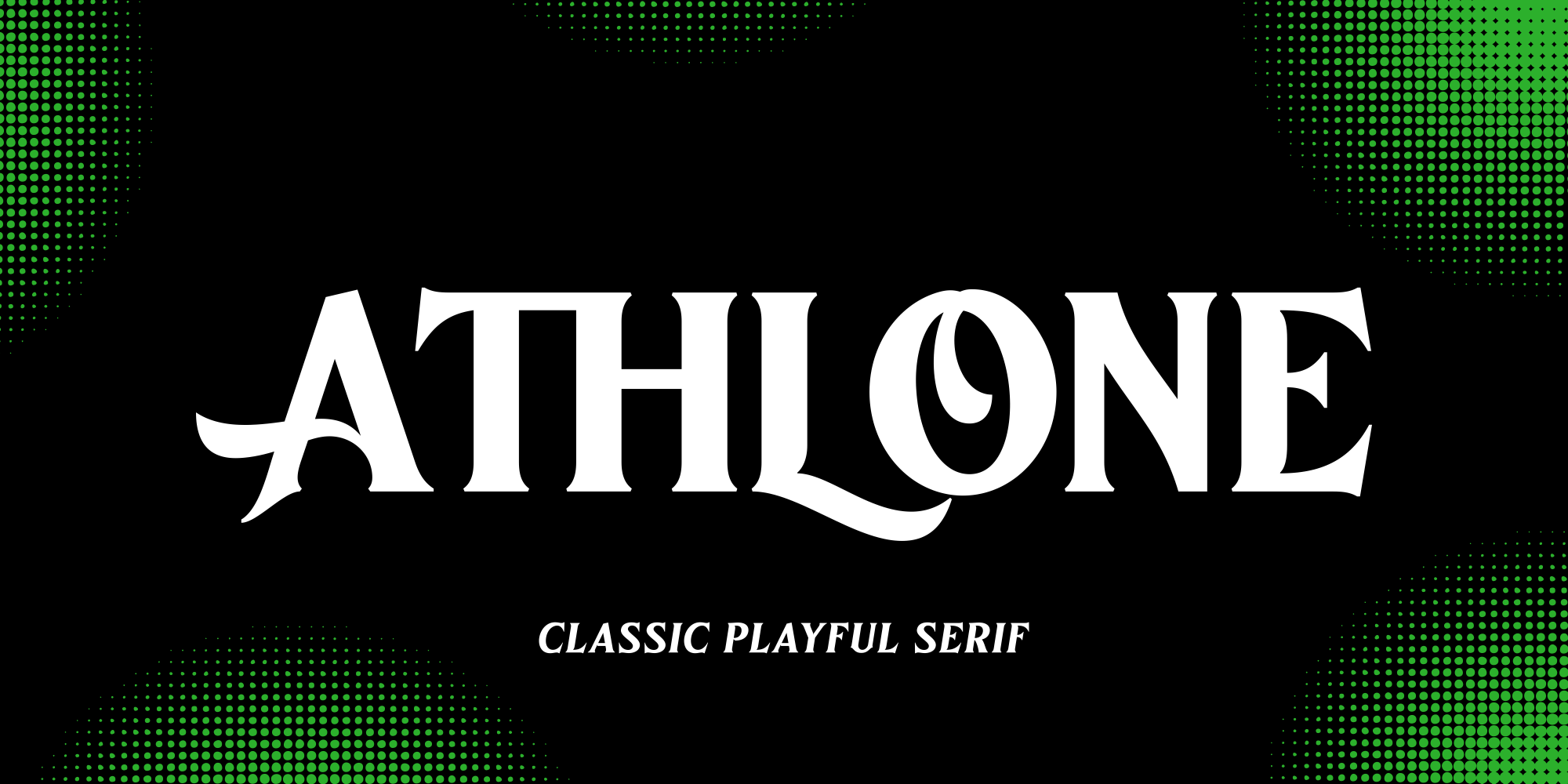
Discover the perfect blend of Irish charm and contemporary elegance with Athlone Font Free Download – a versatile serif typeface inspired by the rich typographic heritage of Ireland. This beautifully balanced font combines traditional craftsmanship with modern readability, making it ideal for projects that require both character and clarity.
Why Athlone Stands Out:
4 Weight Variations from Light to Bold
Authentic Celtic Flair in select glyphs
Perfect Text-to-Display Versatility
Optimized for Print and Digital
Ideal Applications:
Irish tourism branding and materials
Craft brewery and distillery packaging
Literary publications and book design
Heritage brand identities
Cultural event promotions
Special Celtic-inspired alternates
Design Tip: Use the light weight with the Celtic alternates for subtle heritage touches in body text. Pair with parchment textures and emerald green accents for traditional Irish aesthetics.